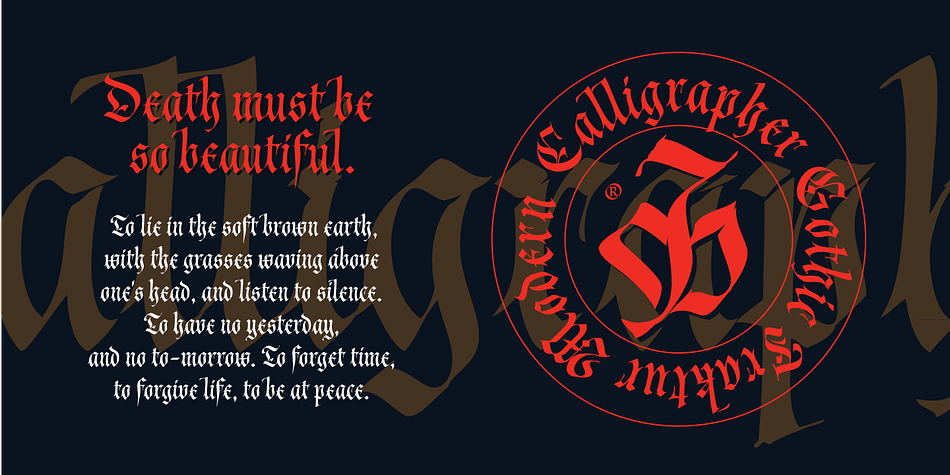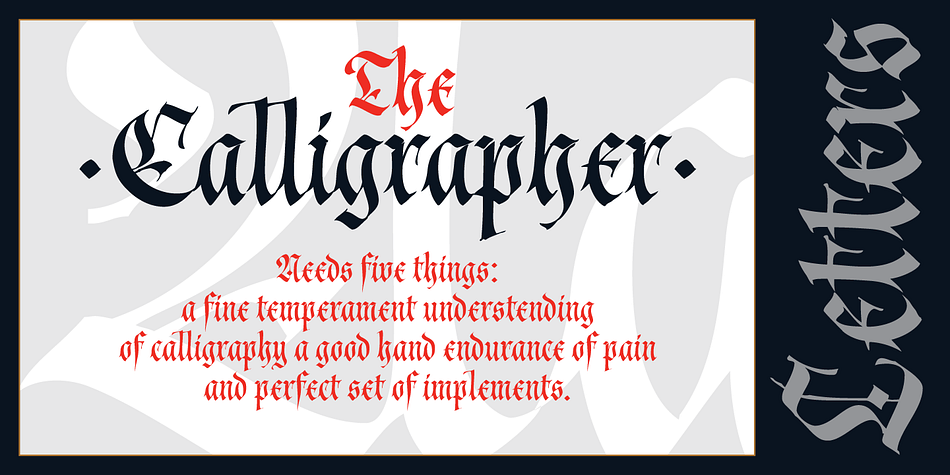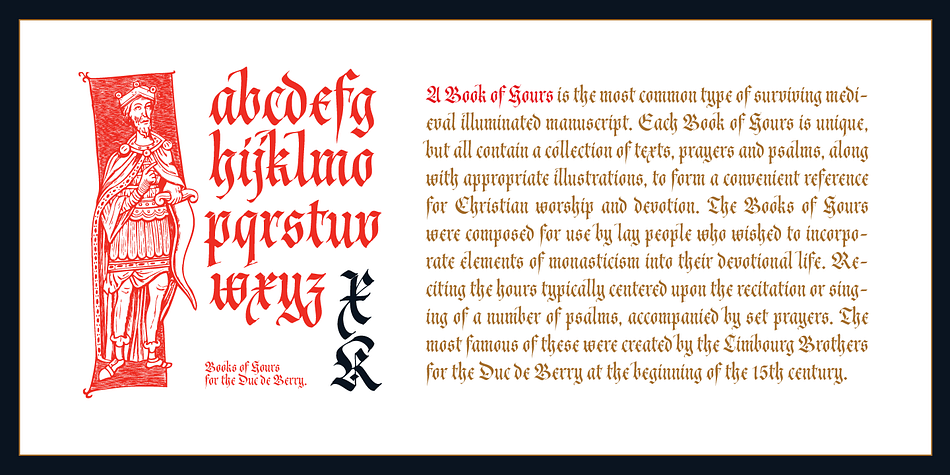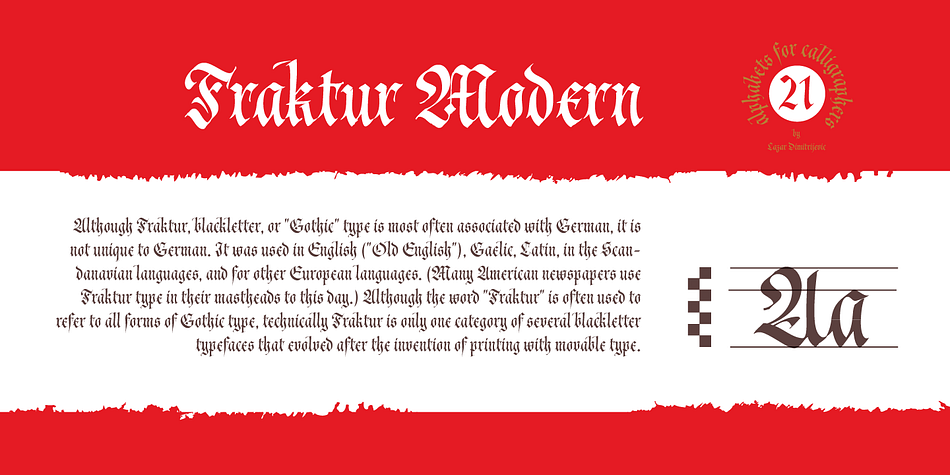
Cal Fraktur Modern is a blackletter font published by Posterizer KG.
Calligrapher Fraktur Modern is one of the calligraphic group of fonts called “21 alphabets for Calligraphers“.
All graphemes are taken from calligraphic pages written on modern Gothic Fraktur calligraphic style.
This font is ideal for calligraphic sketches or for imitation of ancient manuscripts. This font contains all the Latin glyphs.